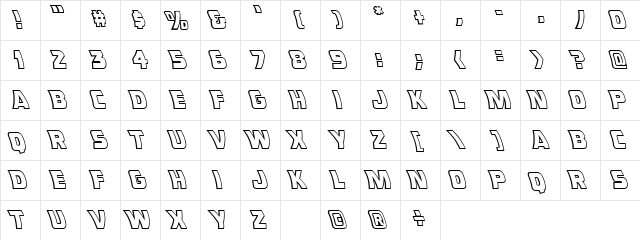
CC Double Back Past
Design Context for CC Double Back Typeface
CC Double Back is a composed and adaptable typeface that performs quietly and consistently across a wide range of design contexts.